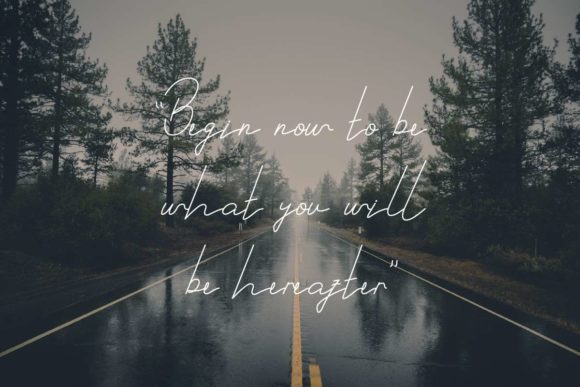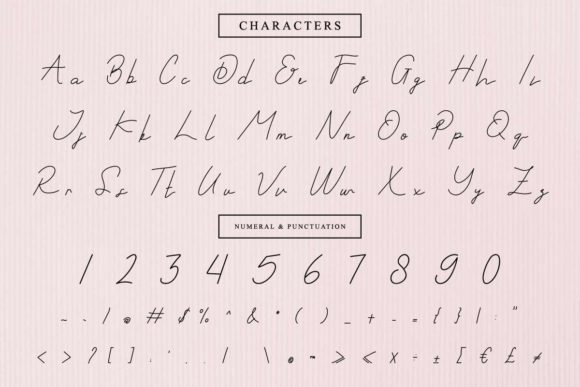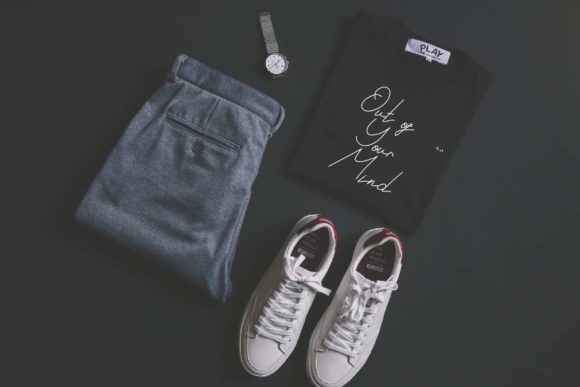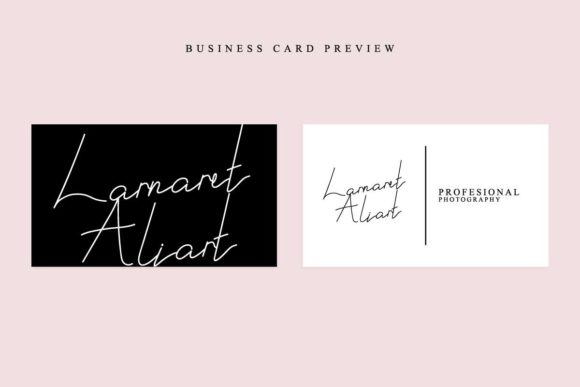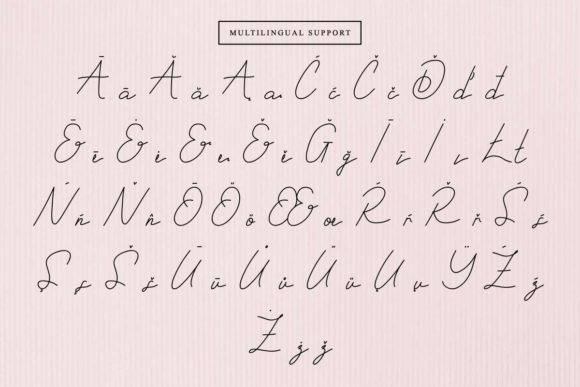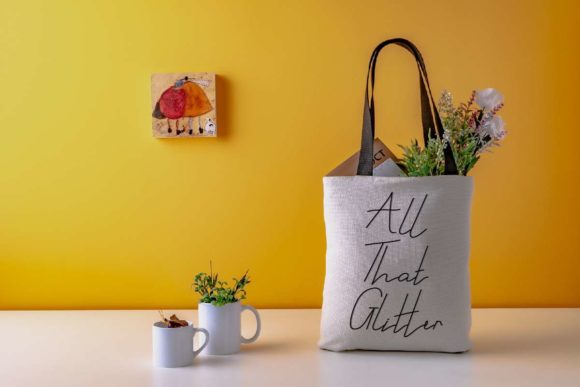
The Perfect Touch for Your Next Design Project
As a designer, you’ve probably experienced that moment when everything comes together – colors, shapes, and typography blend harmoniously to create something truly special. You see your vision take shape, and it’s like a spark of creativity ignites within you. But, have you ever thought about what makes that perfect design tick? For many creatives, it’s all about the font.
Enter the Aylesbury Vale Font – a beautiful, authentic script font that brings a personal touch to your designs. This elegant, thin font is perfect for adding a touch of sophistication to your next project. Whether you’re working on a wedding invitation, a branding campaign, or a heartfelt letter, Aylesbury Vale Font is sure to make your design stand out.
Aylesbury Vale Font Key Features
- Unique Characteristics: Aylesbury Vale Font is a bespoke font designed to evoke the character of the Aylesbury Vale region in England. It features a unique blend of traditional and modern elements, making it a distinctive choice for any project.
Aylesbury Vale Font Review
Aylesbury Vale Font is a beautiful script font designed for those who want a more elegant and refined look. It’s perfect for titles, headings, and other typography that needs a touch of sophistication.
- The font is highly customizable, allowing you to adjust the weight, size, and style to fit your needs.
- The connecting strokes are smooth and fluid, making it easy to read even in longer blocks of text.
- The font is highly legible, making it perfect for body text and other areas where readability is crucial.
- The font has a wide range of languages supported, making it a great option for multilingual projects.
- The font can be a bit too ornate for some projects, making it difficult to read in certain contexts.
- The font is not suitable for large blocks of text, as the connecting strokes can become overwhelming.
Aylesbury Vale Font is a beautiful script font that is perfect for those who want a more elegant and refined look. While it has some limitations, the font is highly customizable and highly legible, making it a great option for many projects.
For best results, use the Aylesbury Vale font for headings and titles, and pair it with a clean and simple font for body text.
The Aylesbury Vale font is perfect for:
- Business branding and marketing materials.
- Editorial and publishing projects.
Remember to use the Aylesbury Vale font in moderation, as it can be quite ornate and may overwhelm the design if